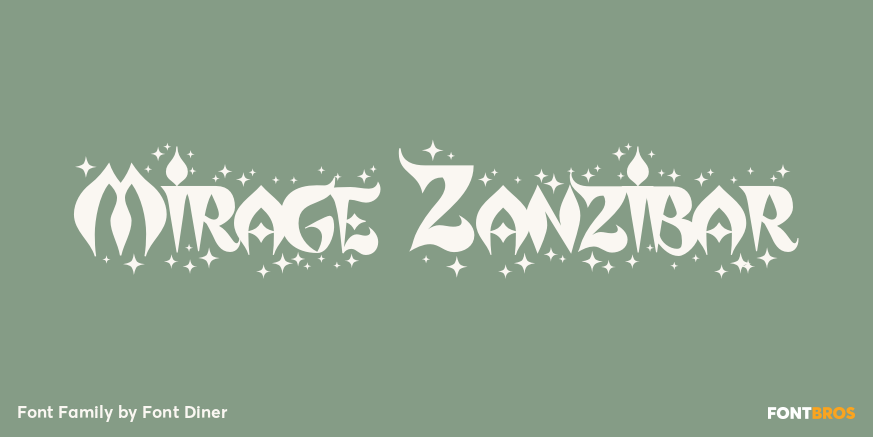
HomeFont BrosSpecial EffectMirage Zanzibar Special Effect Mirage Zanzibar FacebookXPinterestWhatsApp 1 of 1 About Mirage Zanzibar The Mediterranian night sky shimmers with a jackpot of stars and diamonds! Enjoy this dazzling bejeweled font!  DOWNLOAD ON FONT BROSThis font is sold and delivered by Font Bros. Font Canyon may earn a commission if you buy through this link. People also explored Rotato Font Owissa Story Duo Font Christmas Script Font Hollywood Font Navara Font Smoothie Milky Font Merilland Font Candy Cake Font Rightwood Font 344 0 TagsMirage Zanzibar Font Previous articleMirantz CompleteNext articleWild Heart LEAVE A REPLY Cancel reply Comment: Please enter your comment! Name:* Please enter your name here Email:* You have entered an incorrect email address! Please enter your email address here Website: Save my name, email, and website in this browser for the next time I comment. Personal Use Free Qiwqiw Personal Use Free Read more about this font Baby Mollusca Personal Use Free Read more about this font Aseline Personal Use Free Read more about this font Americana Personal Use Free Read more about this font BLOG The 10 Best Handwriting Fonts to Add Personality to Your Designs 10 of the Best Handwriting Fonts for Adding Personality to Your Designs There will undoubtedly be no other better choice than handwriting fonts to give... Exploring Font Trends Modern Sans-Serif Fonts That Brands Love in 2025 How to Install and Use Fonts on Windows, macOS, and Web Projects